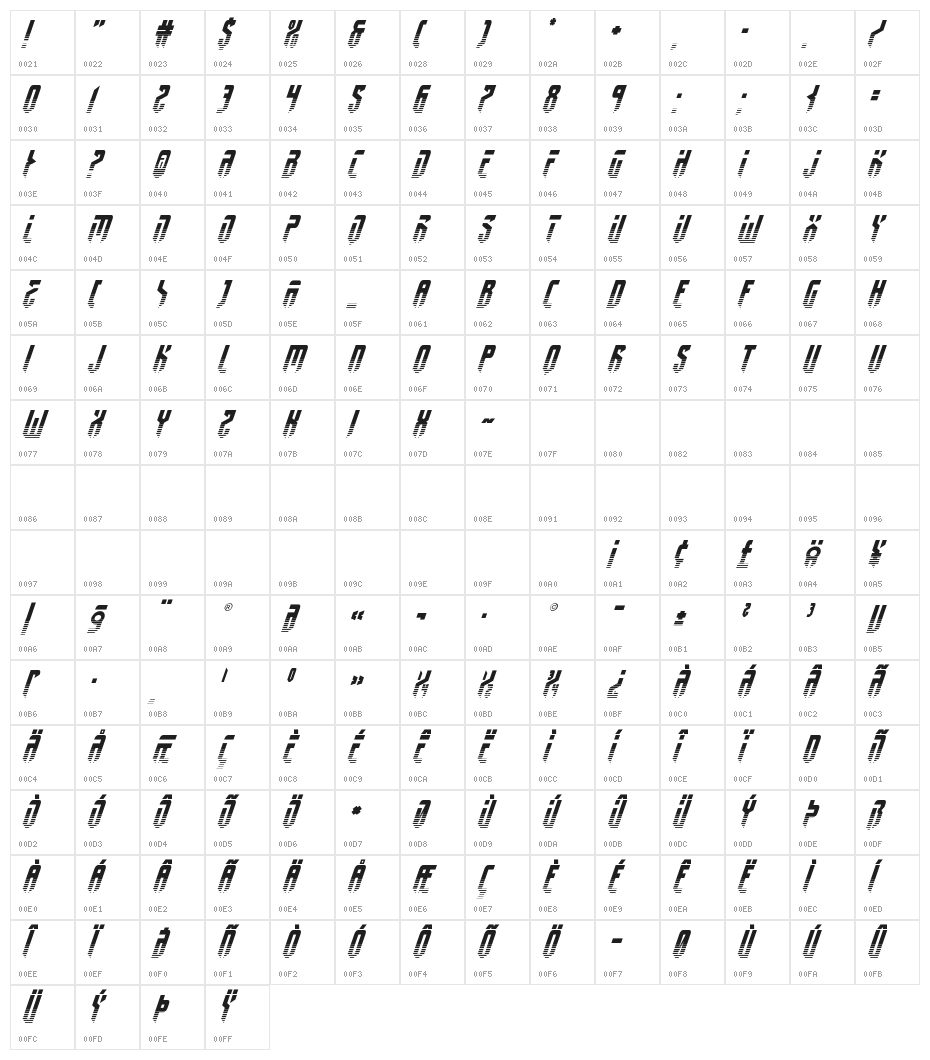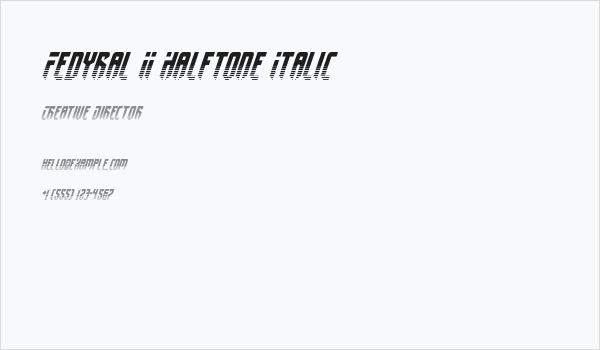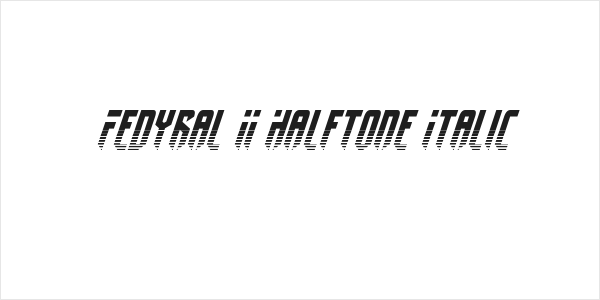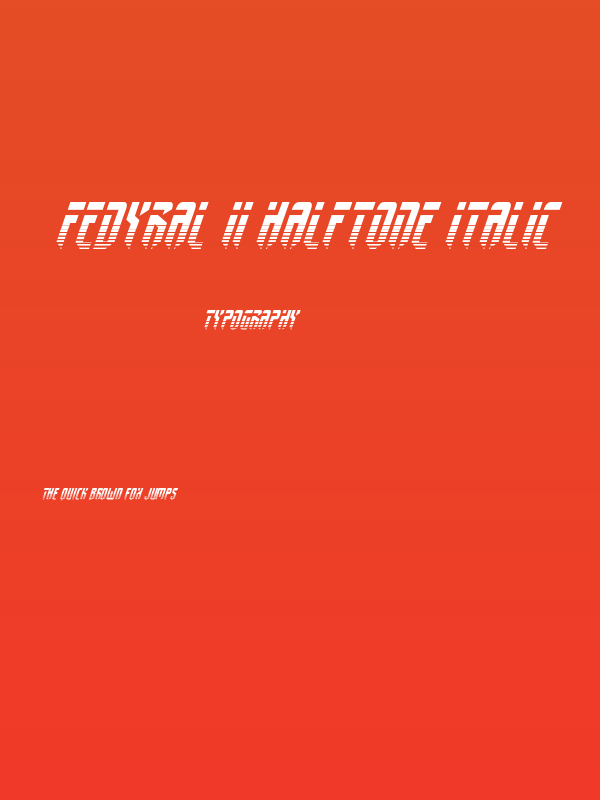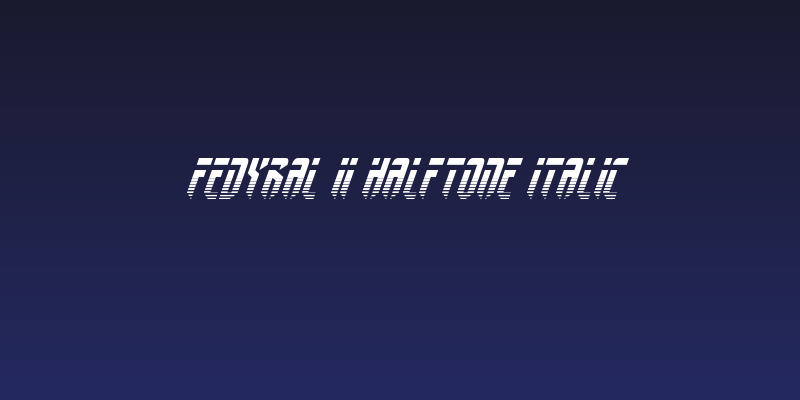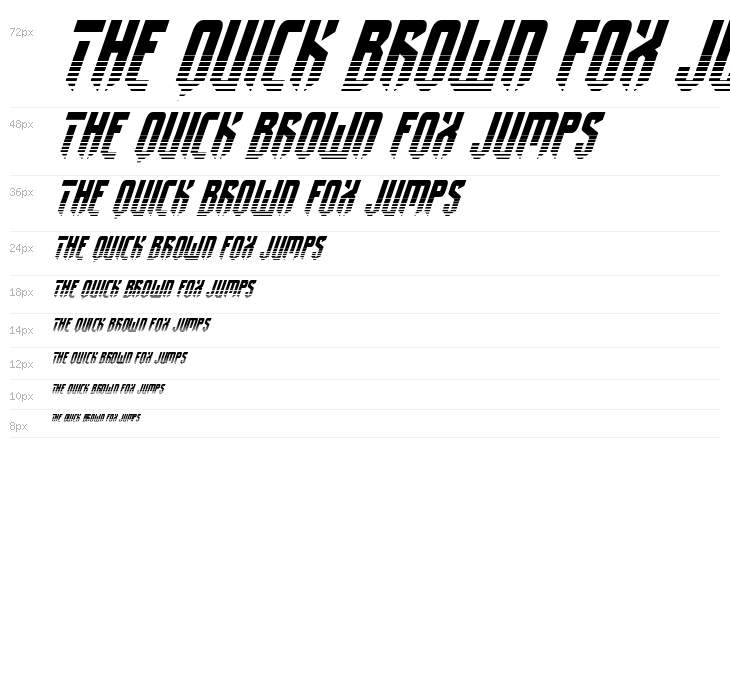
Fedyral II Halftone Italic Font
Fedyral II Halftone Italic Description
This font features a bold, italicized style with a unique halftone effect that gives it a dynamic and futuristic appearance. The characters are designed with a slanted orientation, enhancing the sense of motion and speed. The halftone pattern creates a gradient effect within each letter, adding depth and visual interest. The font's geometric structure and sharp angles contribute to its modern and edgy look, making it suitable for attention-grabbing designs. The uppercase and lowercase letters maintain consistency in style, while the numerals and special characters are crafted to match the overall aesthetic.
| Overall Style | Futuristic, Dynamic |
| Proposed Projects | Ideal for projects like sci-fi posters, video game titles, sports branding, and tech-related designs. |